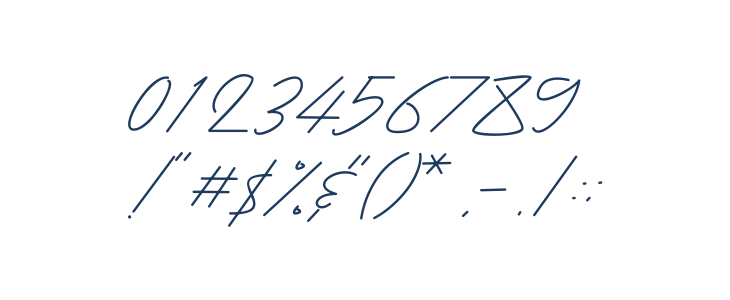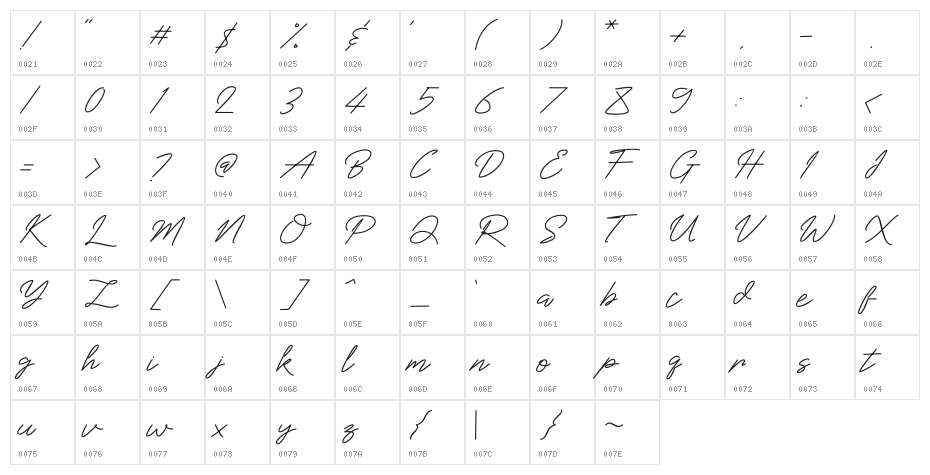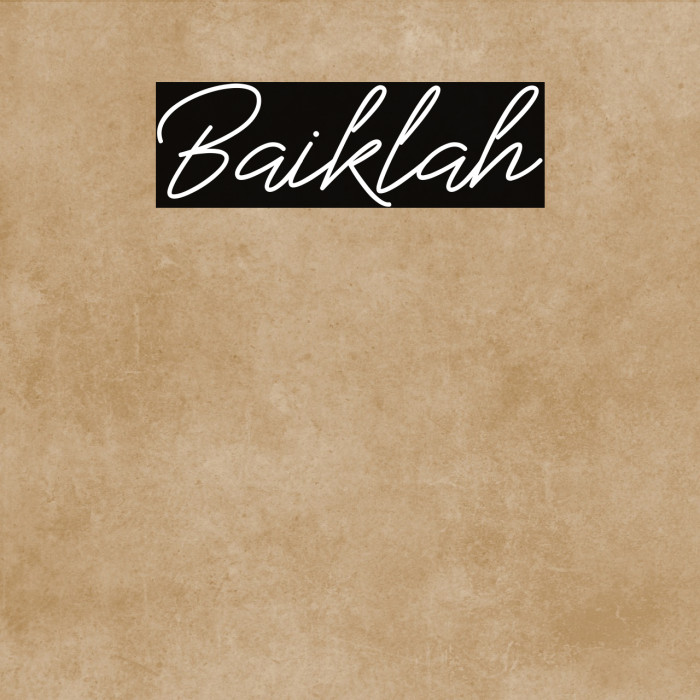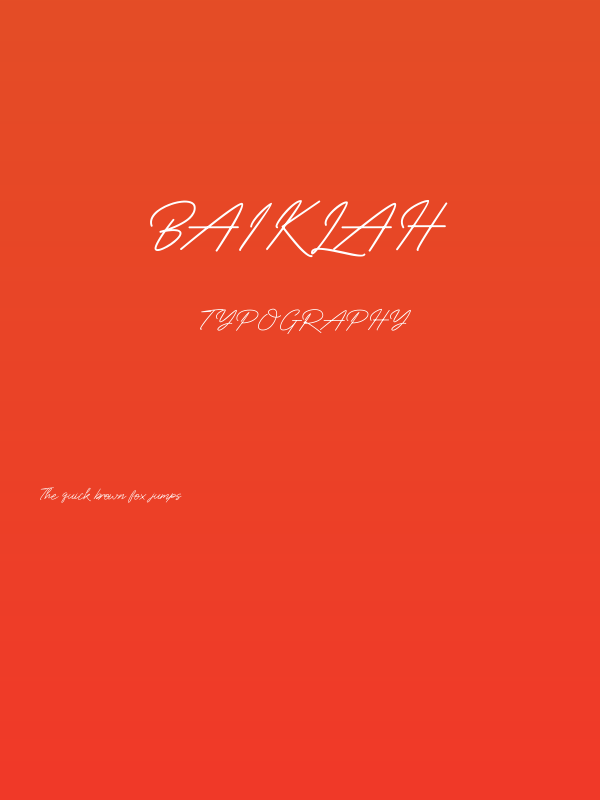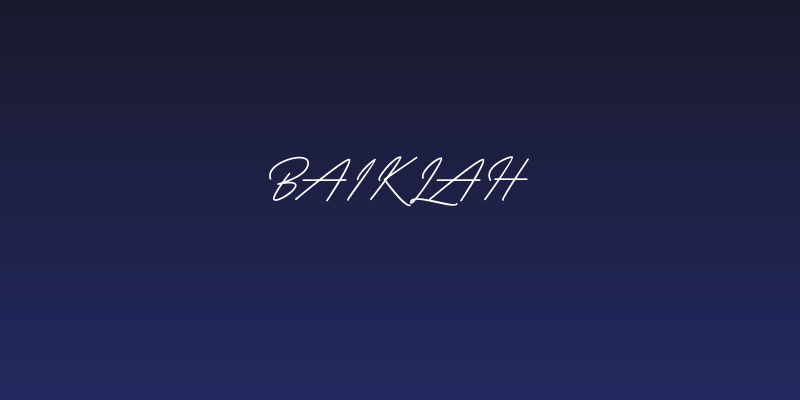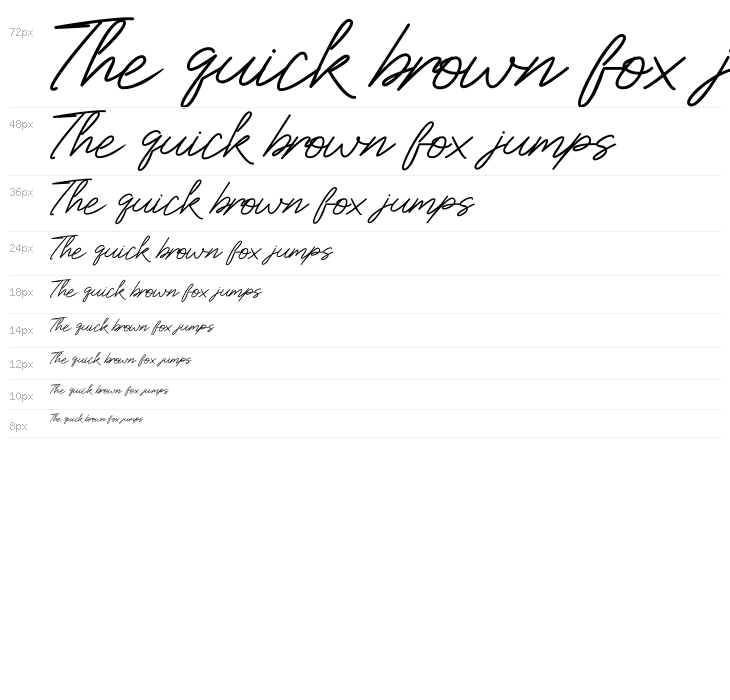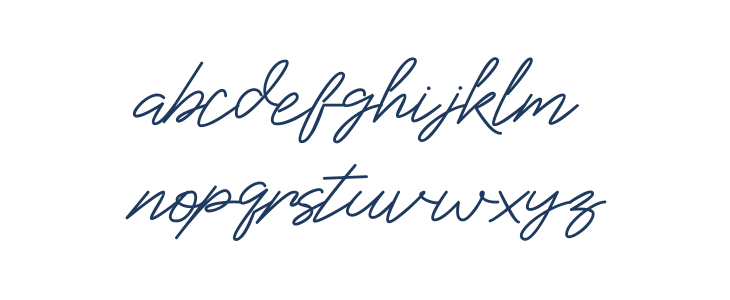
Baiklah Font
Baiklah Description
This elegant script font features fluid, connected strokes that mimic the natural flow of handwriting. The uppercase letters are slightly more formal, with graceful loops and curves, while the lowercase letters maintain a casual, approachable feel. The numerals are consistent with the overall style, offering a harmonious blend of sophistication and readability. Special characters are thoughtfully designed to complement the alphabet, ensuring versatility across various applications. The font's overall aesthetic is both modern and timeless, making it suitable for a wide range of design projects.